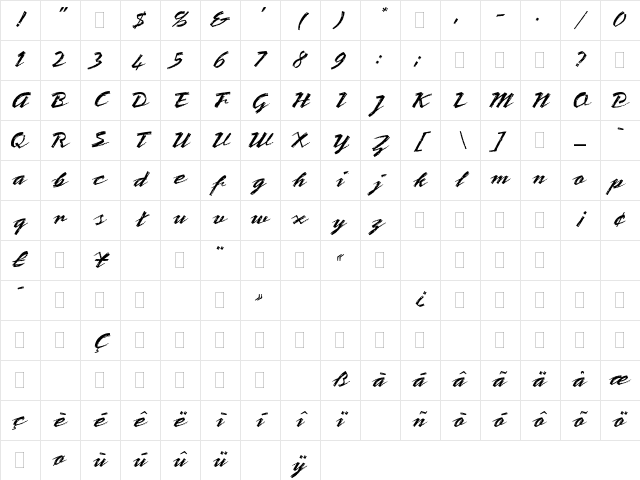
Complete BronxPlain Regular glyph index. Displaying only characters natively supported by BronxPlain Regular font.
BronxPlain is a composed and adaptable typeface that performs quietly and consistently across a wide range of design contexts.